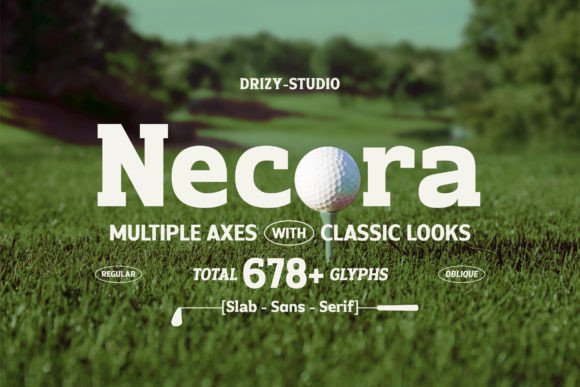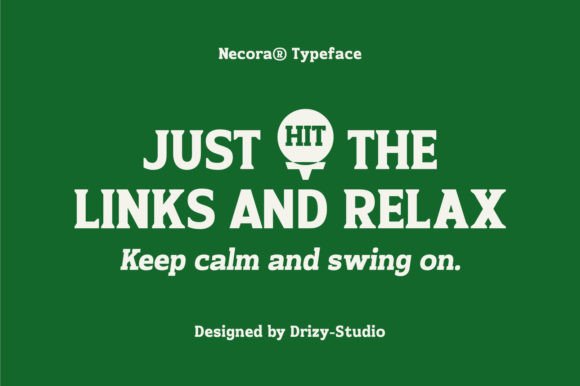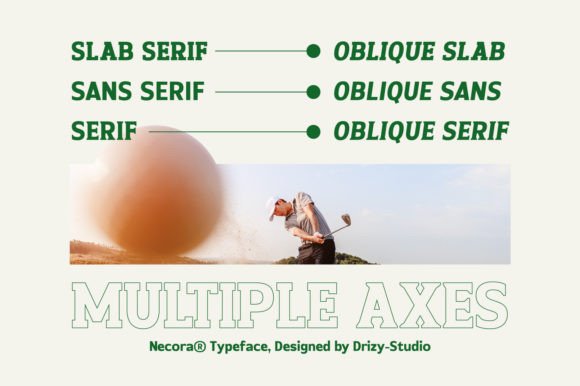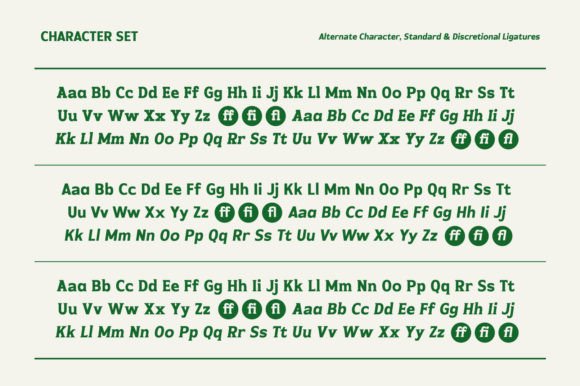
Necora Font: Elegant & Sporty Serif for Modern Logo Design
About the Necora Font
The Necora Font is here to transform your projects with its distinctive character and style. Necora – Multiple Axes Classic Font
Necora is a font that exudes timeless elegance and sporty sophistication with GOLF – ELEGANT SPORT stands out balanced blend of timeless refinement and athletic energy, making every text appear both authoritative and engaging. Designed with multiple axes, it blends classic typographic elements with modern nuances, making it ideal for projects that require a balance of tradition and contemporary style.
Its sleek lines and carefully crafted curves ensure clarity and readability across various design contexts, from editorial layouts to branding and signage. Whether used in print or digital media, this font stands out with its versatility and aesthetic appeal, embodying a sense of refinement and dynamic energy.